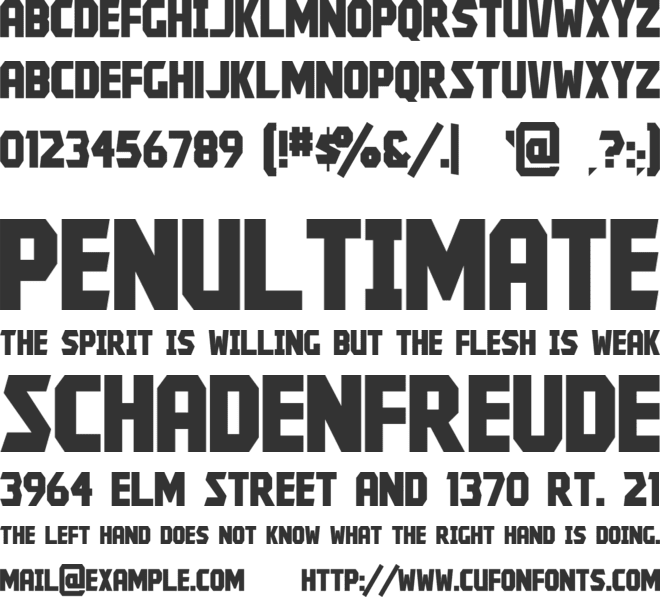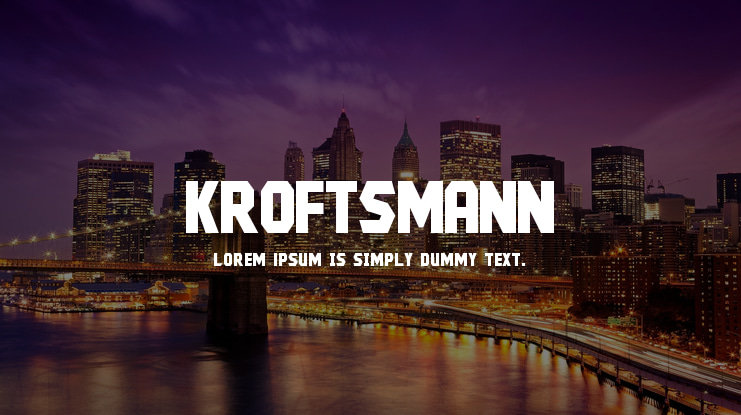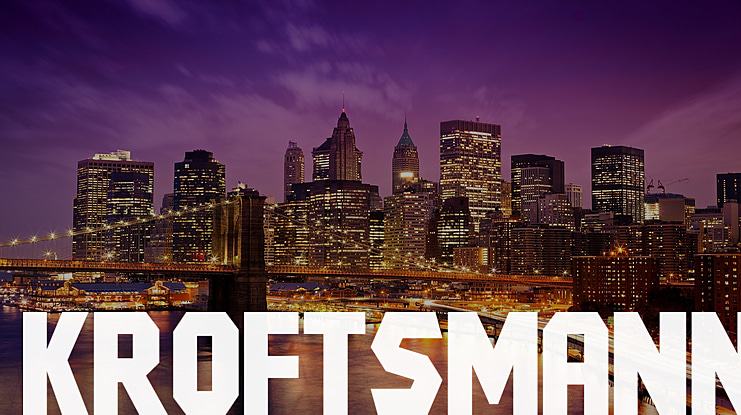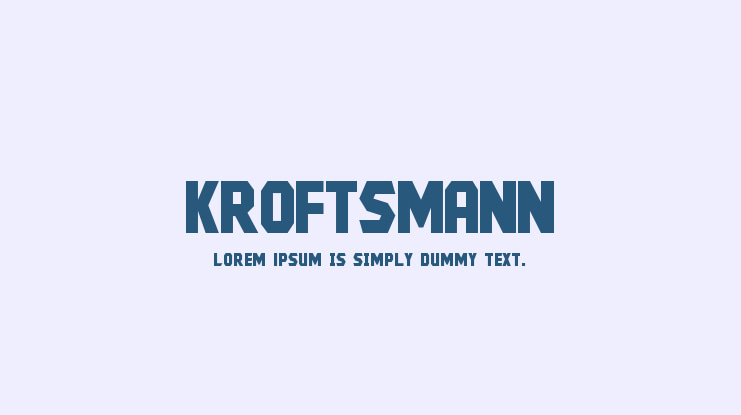
Kroftsmann Font
This is based on the logo for Craftsman tools.
As I was making the set, I figured it also lookes like a Soviet propaganda
font, so I added a full Cyrillic character set to it as well.